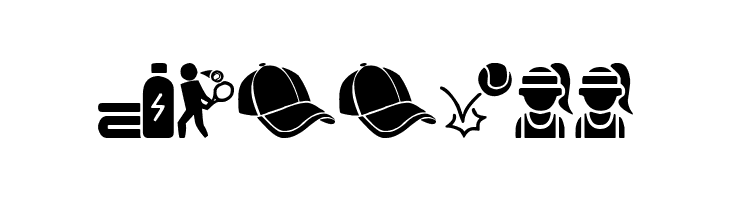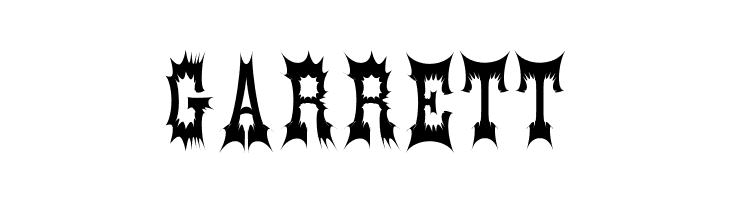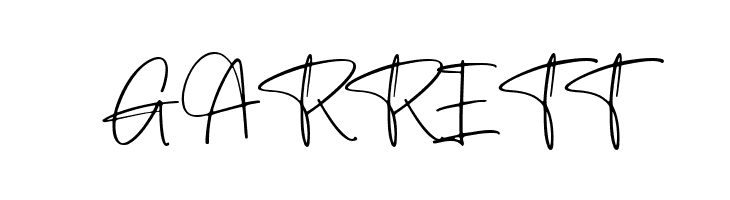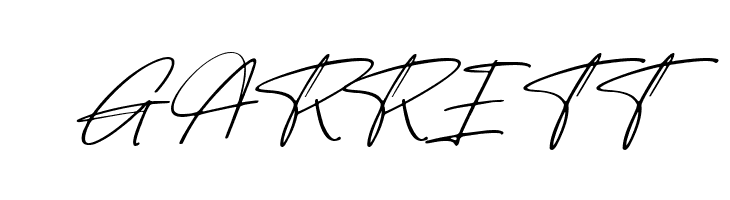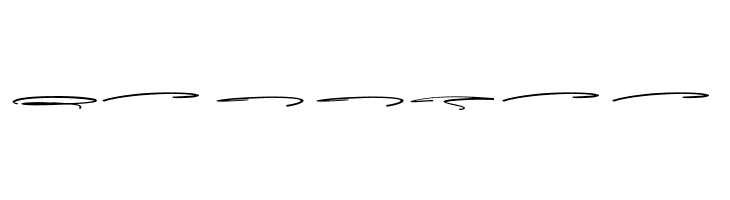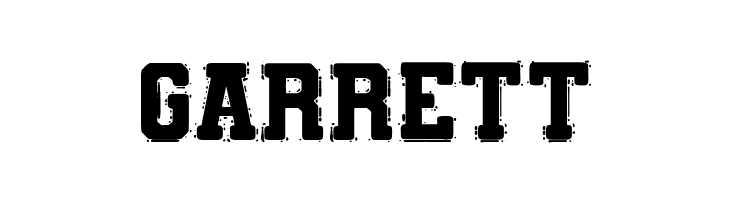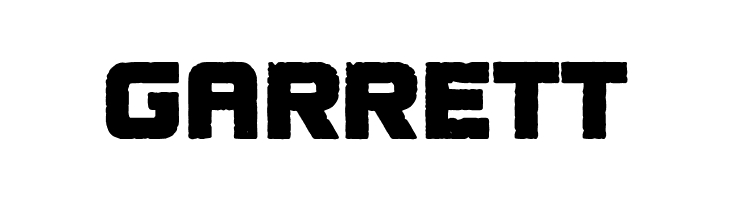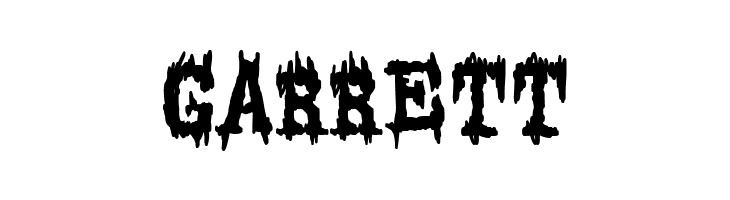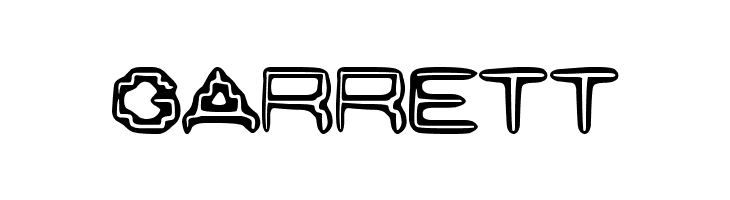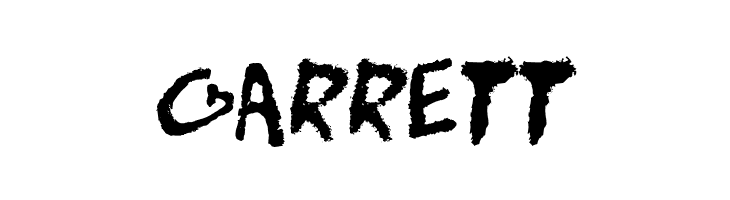
Whimsical, illustrative font with underwater and diving motifs.
Abstract, hand-drawn cattle illustrations form each character.
Taxi-themed dingbat font with bold, iconic symbols.
Anatomical illustration-based decorative display font.
An elegant, flowing script font with natural handwriting style.
A casual, flowing handwritten font with interconnected cursive letters.
A playful, handwritten font with fluid strokes and artistic flair.
A modern font with high contrast and geometric influences, ideal for striking designs.
A bold, geometric font with a futuristic and technical design.
Cartoonish, technology-themed illustrative font with unique character drawings.
A futuristic, geometric font with high contrast and abstract character designs.
A futuristic, geometric font with characters enclosed in circles, offering a techno-inspired look.
A futuristic, geometric font with bold, angular letterforms.
A pixelated, retro-style font with a blocky, geometric design.
Bold, distressed sans-serif with a geometric, industrial style.
A bold, grunge-style font with a hand-drawn, rebellious aesthetic.
A bold, geometric font with rounded edges and consistent stroke widths.
A rounded, geometric font with uniform strokes and a modern, approachable style.
Cartoon illustrations of telecommunication and communication scenes.
A bold, rounded font with a playful and casual style.
Distressed, bold slab serif with a vintage collegiate feel.
Bold, high-contrast tennis icon set with consistent silhouettes.
A playful, dotted font with a whimsical and creative design.
A playful, dot-based decorative font inspired by Japanese Hiragana.
A bold, spiky font with a gothic, horror-inspired design.
A bold, modern font with a geometric influence and strong presence.
Outlined, geometric display font with a digital, futuristic look.
A bold, distressed font with a gritty, textured appearance.
A bold, playful font with a hand-drawn, cartoonish style.
A bold, three-dimensional font with a hatched pattern, perfect for decorative use.
A bold, rugged font with irregular, jagged edges and a distressed look.
A bold, jagged, and heavily italicized font with a chaotic, torn-paper aesthetic.
Distressed, dripping horror display font with bold, jagged forms.
A bold, jagged, and playful font with a cartoonish, horror-themed aesthetic.